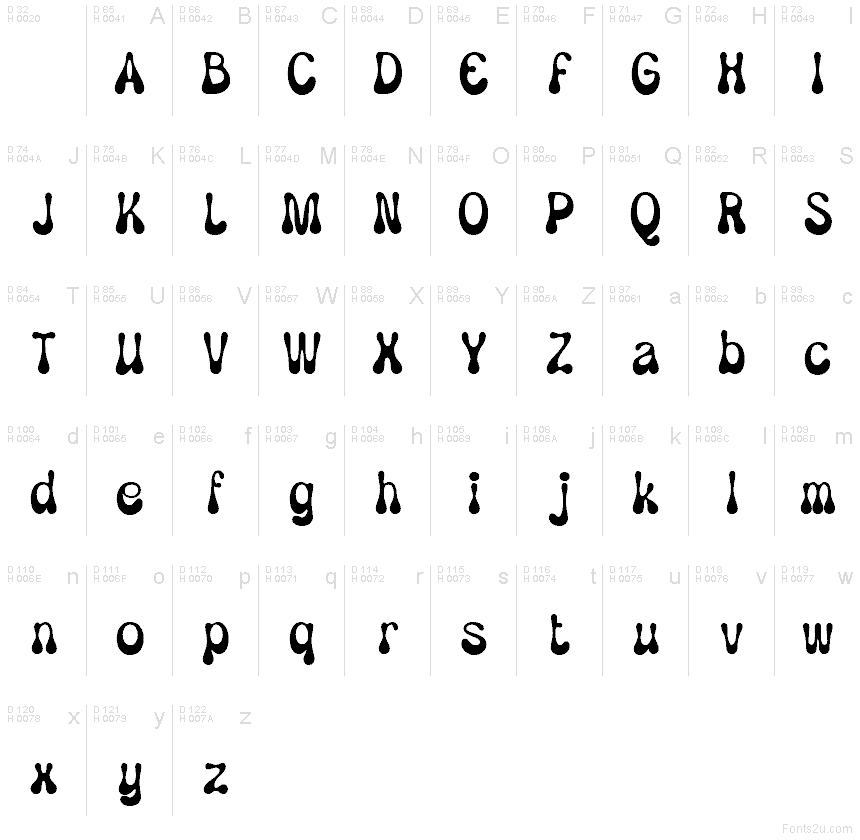
CS Mojitos Drawn font by Craft Supply Co. is a free brush font built around plump, inky strokes and playful teardrop terminals. Part of the CS Mojitos family, it sways with a juicy, hand-painted rhythm—rounded forms, soft edges, and bubbly counters that feel splashy rather than scruffy. The result is lively and legible, with enough weight to hold its own on busy, colorful layouts.
Using CS Mojitos Drawn, headlines pop on beverage branding, summer posters, tiki bar menus, cheerful packaging, event flyers, and social media promos. This free font’s chunky pace and generous curves keep words cohesive at large sizes, while the soft contrast adds warmth. Pair it with a clean geometric sans for body copy to let the brushy character sing.